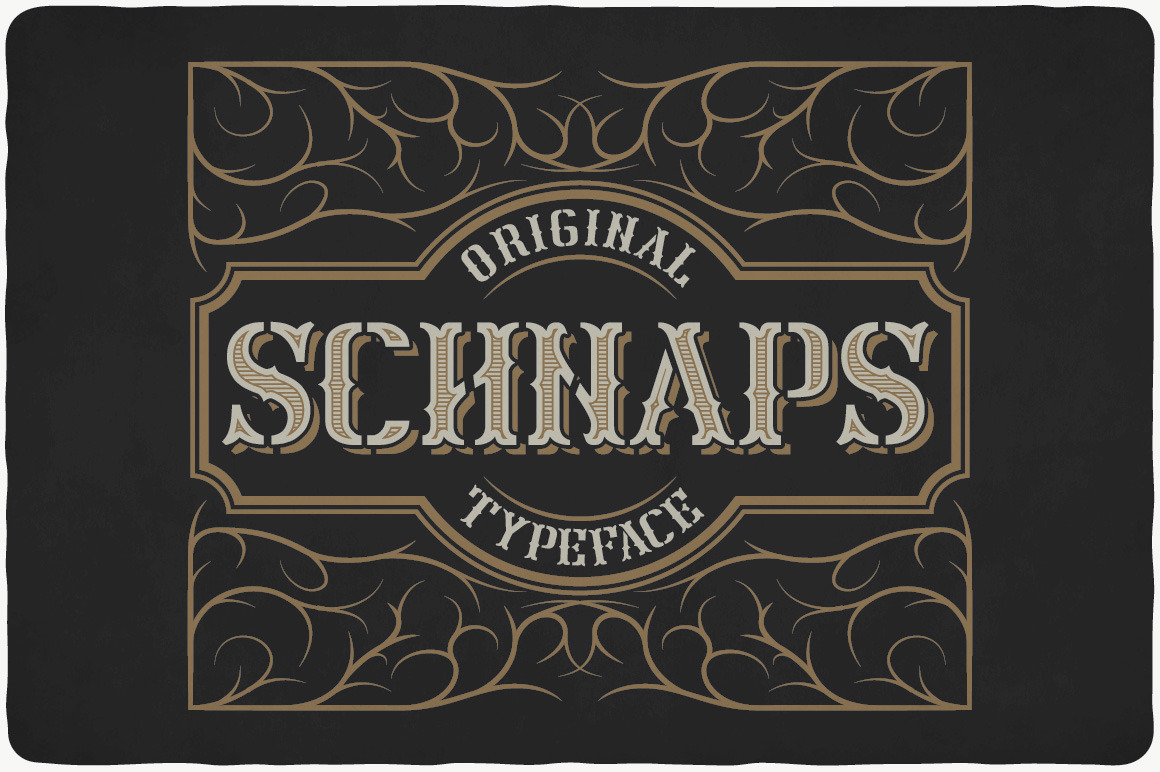
Schnaps Typeface
Introducing a vintage look label typeface named "Schnaps". This typeface contains layers - texture and shadow, for sample look at 4th preview. Plus aged (distressed) version. Typeface is good viewed on any yours design.